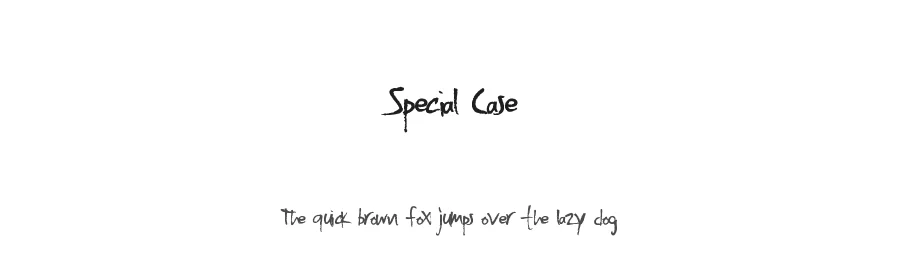
About Jellyka - le Grand Saut Font
The textual one is meant for longer texts, it's easier to read.
And if you can recognize some Andrew's Queen characters (numbers and symbols), it's because le Grand Saut was my first try. I totally restarted it to end with Saint-Andrew, but I decided today it would not hurt to publish that "first try".